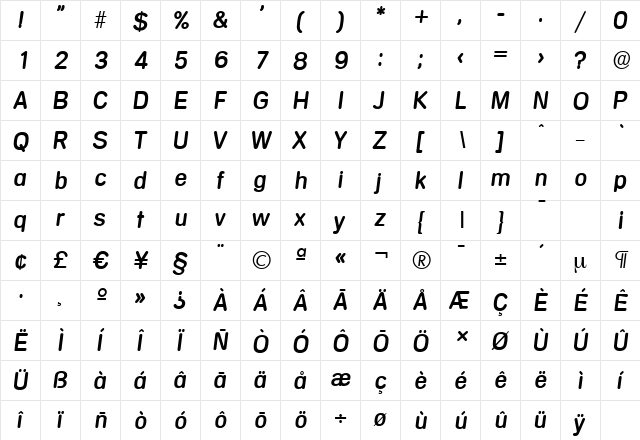
MercedesSerial Italic Font Preview
MercedesSerial Italic
MercedesSerial Italic Font Details
Design Context for MercedesSerial Typeface
MercedesSerial takes a measured approach to typography — its balanced proportions and neutral character make it a reliable workhorse for both digital and print work. The slanted form adds forward momentum and visual energy.